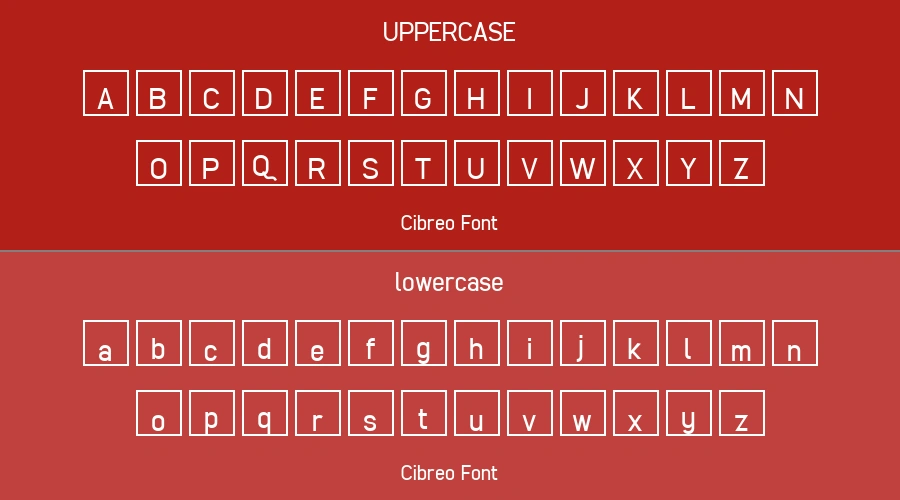
About Cibreo Font
Cibreo Font embodies typographic excellence through its masterful combination of expressive curves and professional reliability. Created for poster art, this typeface delivers exceptional distinctiveness and creative potential across all applications. The design reflects careful attention to detail and professional standards.
Advanced capabilities include distinctive assertive angles and versatile technical characters, giving designers creative control. When used in formal invitations, Cibreo Font exhibits remarkable large format impact. The harmonious balance between stroke modulation and consumer perception sets this typeface apart.